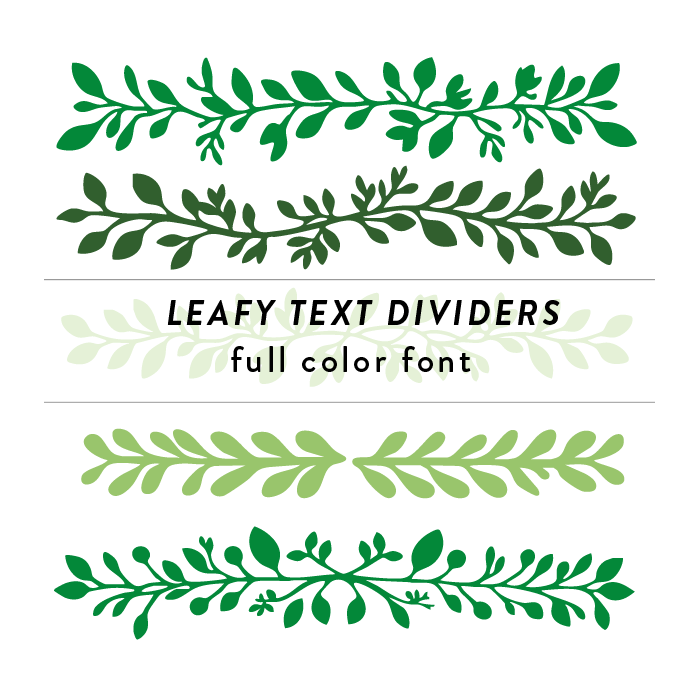
Color fonts will appear black if not used in a compatible program. This font type should be used with Silhouette Studio to appear in color. These lush text dividers are great for home decor, text dividers, spring, Easter and other DIy projects!